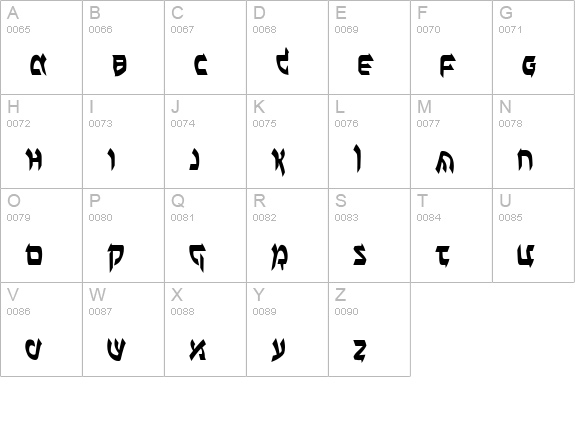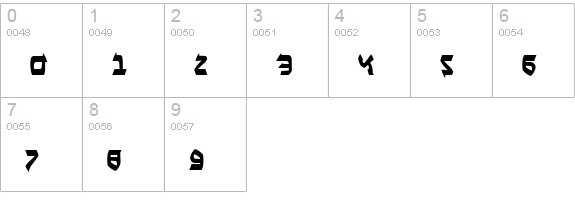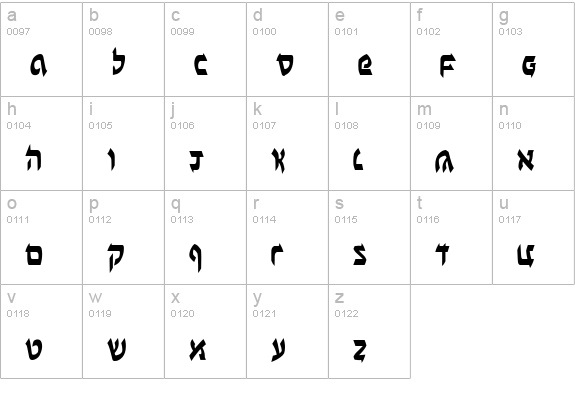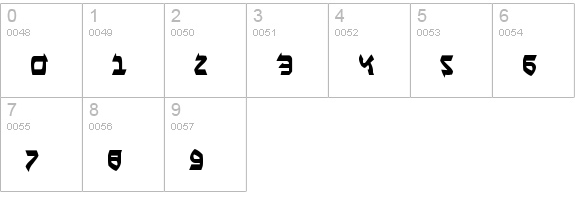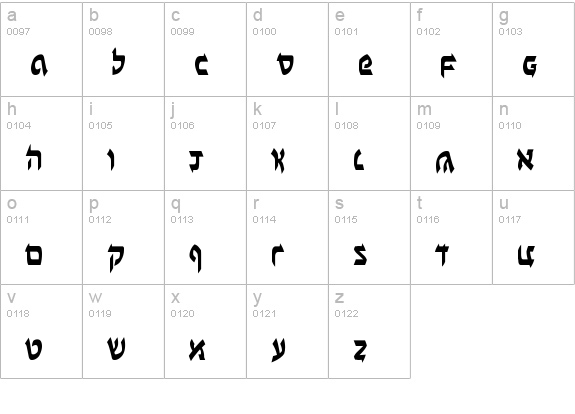
Ben-Zion Condensed Font Details
Ben-Zion Condensed is a distinctive, condensed-width variant in the Ben typeface family \xE2\x80\x94 well suited to design and typography projects.
Ben-Zion Condensed is a modern and stylish font that exudes sophistication and elegance. Its sleek lines and sharp angles give it a contemporary feel, making it perfect for a wide range of design projects. This font is versatile and can be used for anything from logos to headlines to body text. What sets Ben-Zion Condensed apart is its unique blend of professionalism and creativity, making it a standout choice for designers looking to make a statement. The condensed style adds a touch of sleekness and compactness to any design, making it ideal for projects where space is limited. Moreover, Ben-Zion Condensed is available for free download at FontsMarket.com, making it easily accessible to designers and creatives looking to add a touch of sophistication to their projects without breaking the bank. Download this font today and elevate your designs with the modern and stylish look of Ben-Zion Condensed.